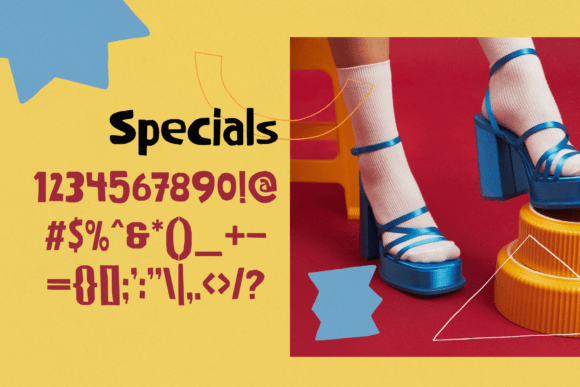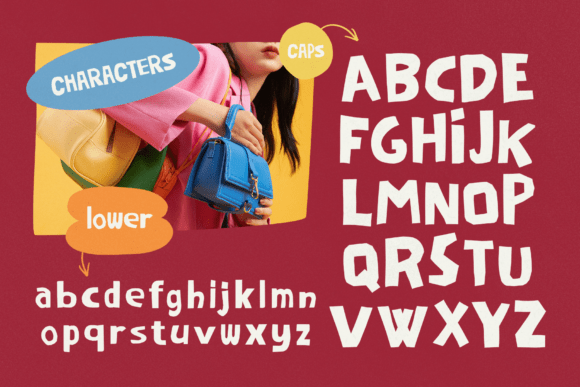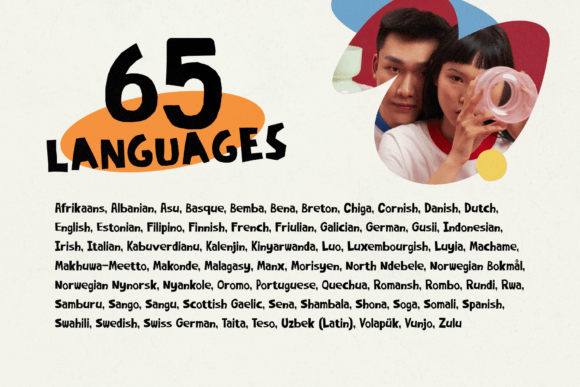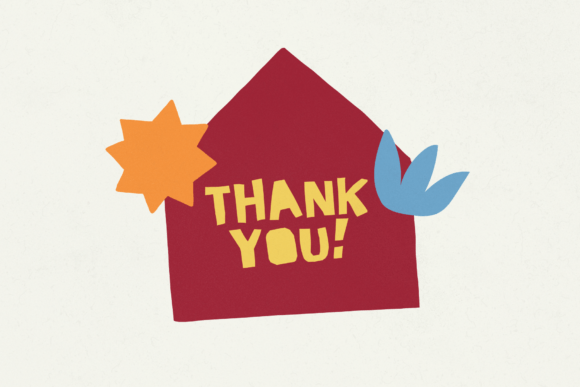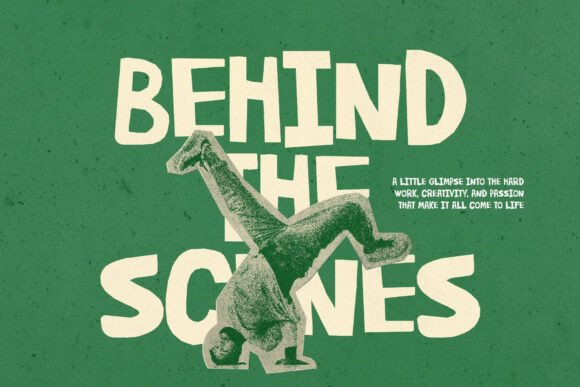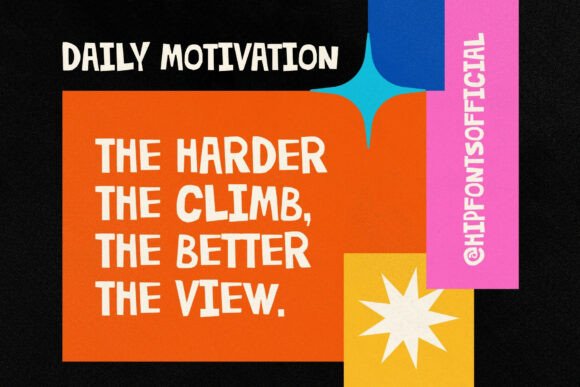
Unleash Your Creativity with Creative Torque Font
Are you tired of using the same old fonts that lack personality and character? Look no further than Creative Torque, a handmade expressive sans serif font that bursts with creativity, playfulness, and beautifully imperfect charm. Designed to feel raw, playful, and genuinely human, this typeface is perfect for designers and crafters who want to add a touch of authenticity and whimsy to their designs.
The Beauty of Imperfection
Creative Torque is not about sterile perfection; it’s about expression, movement, and character. Every letter carries its own unique rhythm and handcrafted touch, creating a visual style that feels fun, artistic, and full of personality. The font’s organic inconsistencies and quirky letterforms give it a charming, handmade feel that’s sure to make your designs stand out.
A Font that’s Full of Personality
Creative Torque is the perfect font for designers who want to add a touch of warmth and originality to their designs. Its handcrafted energy and beautifully imperfect charm make it ideal for a wide range of projects, from flyers and bold headlines to posters, branding, packaging, social media graphics, album covers, children’s projects, apparel, editorial layouts, creative campaigns, and artistic design work.
Versatility and Readability
One of the best things about Creative Torque is its versatility and readability. Despite its playful and artistic feel, the font remains highly readable, making it perfect for both digital and print designs. Whether you’re creating a bold headline or a detailed paragraph, Creative Torque is up to the task.
Use Creative Torque for:
- Flyers and brochures
- Bold headlines and titles
- Posters and prints
- Packaging and labels
- Album covers and music art
- Children’s projects and educational materials
- Apparel and merchandise
- Editorial layouts and magazines
- Creative campaigns and advertising
- Artistic design work and portfolios
What Sets Creative Torque Apart
So what sets Creative Torque apart from other fonts? Here are just a few things that make it special:
- Handmade, handcrafted feel
- Organic inconsistencies and quirky letterforms
- Beautifully imperfect charm
- Highly readable and versatile
- Perfect for designers who want to add personality and character to their designs
Get Creative with Creative Torque
If you’re looking for a font that will help you unleash your creativity and add a touch of personality to your designs, look no further than Creative Torque. With its handmade, handcrafted feel and beautifully imperfect charm, this font is sure to become a favorite in your design arsenal.
In conclusion, Creative Torque is a unique and expressive font that’s perfect for designers and crafters who want to add a touch of personality and character to their designs. With its handmade, handcrafted feel and beautifully imperfect charm, this font is sure to make your designs stand out. So why settle for a boring, generic font when you can use Creative Torque to add warmth, originality, and expressive charm to your projects?